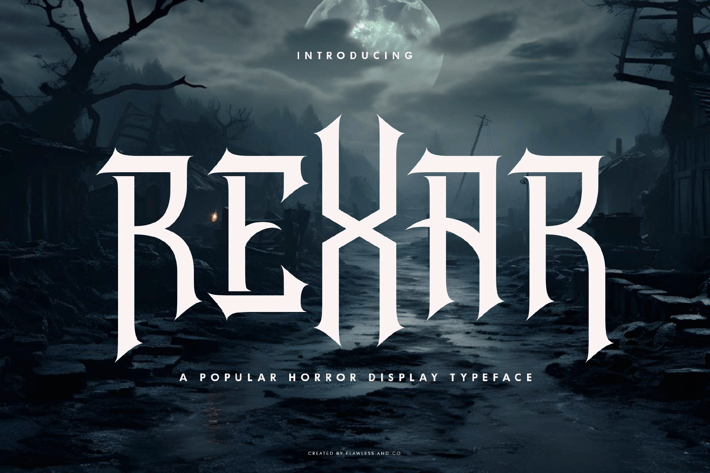
Rexar - Horror Font
Rexar is a gothic display typeface designed to evoke fear and mystery with its sharp letterforms, pointed angles, and intricate gothic details. Perfect for horror movie posters, book covers, metal band logos, and dark fantasy projects, this font delivers a strong and menacing visual presence while enhancing dramatic and mysterious designs.
Uppercase alphabet A-Z
Lowercase alphabet a-z
Numbers 0-9
Some punctuation
Alternates & Ligatures